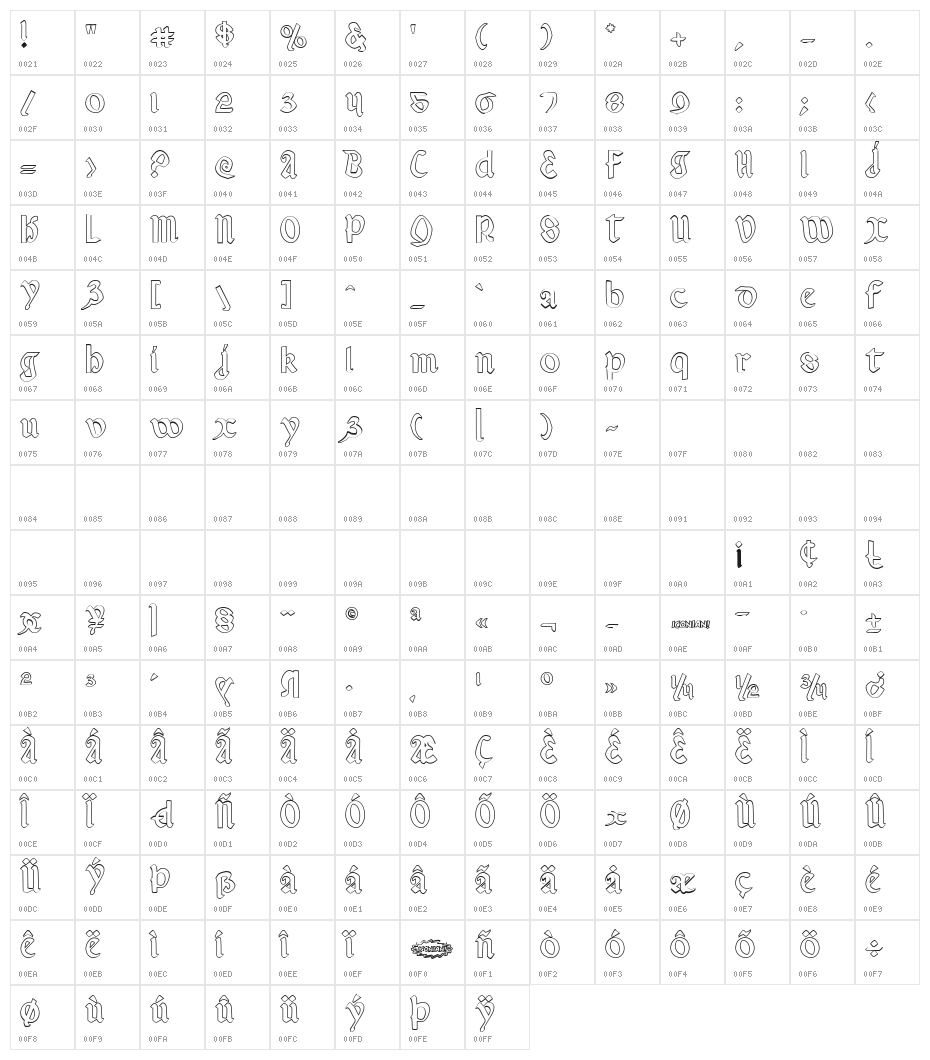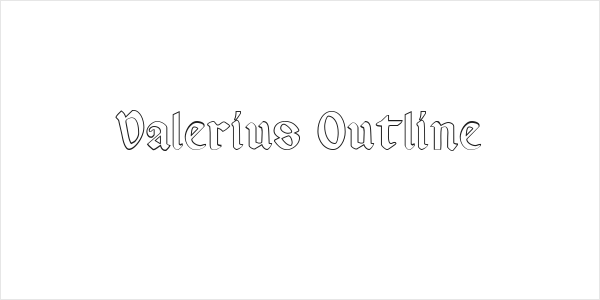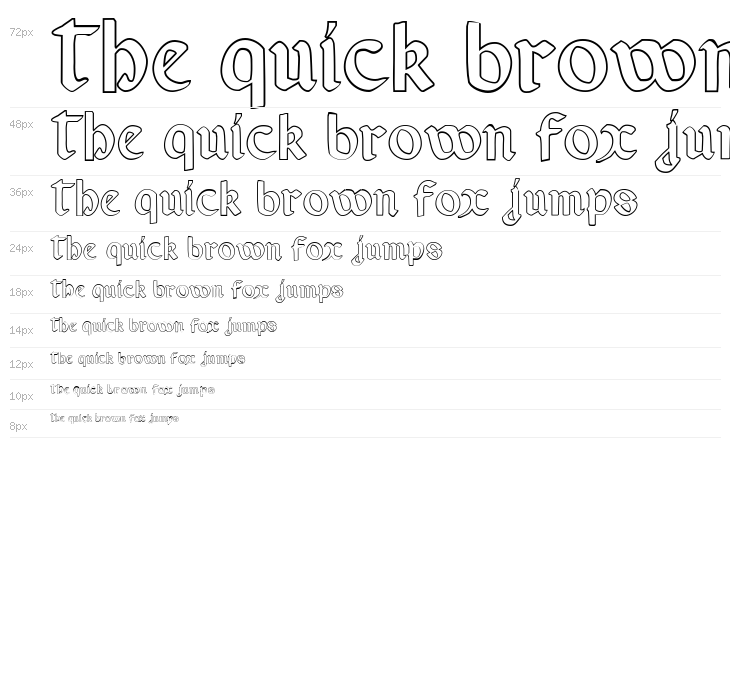
Valerius Outline Font
Valerius Outline Description
This font features an outline style with a distinct, angular design reminiscent of traditional blackletter scripts. The uppercase and lowercase letters maintain a consistent geometric form, with sharp edges and pointed serifs that give it a bold, authoritative presence. The numerals and special characters follow the same stylistic cues, ensuring uniformity across all glyphs. Its outline nature provides a unique visual effect, making it stand out in any design context. The font's intricate details and historical flair make it suitable for projects that require a touch of elegance and sophistication.
| Proposed Projects | Ideal for vintage-themed posters, book covers, branding for luxury products, and decorative invitations. |